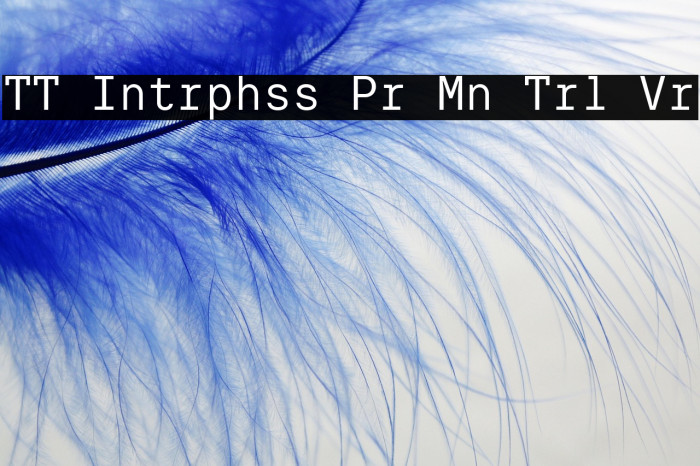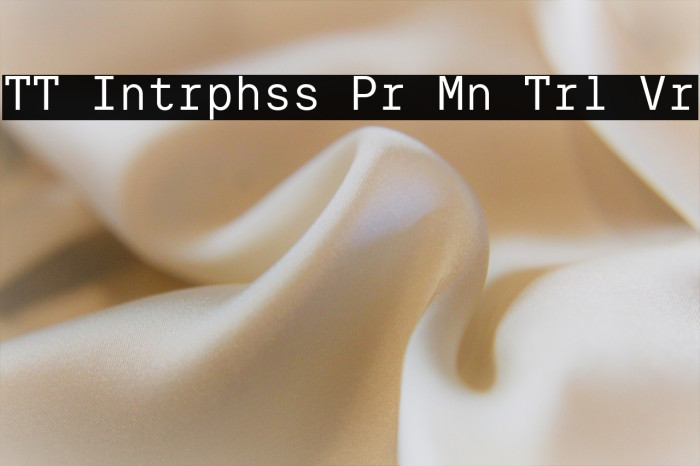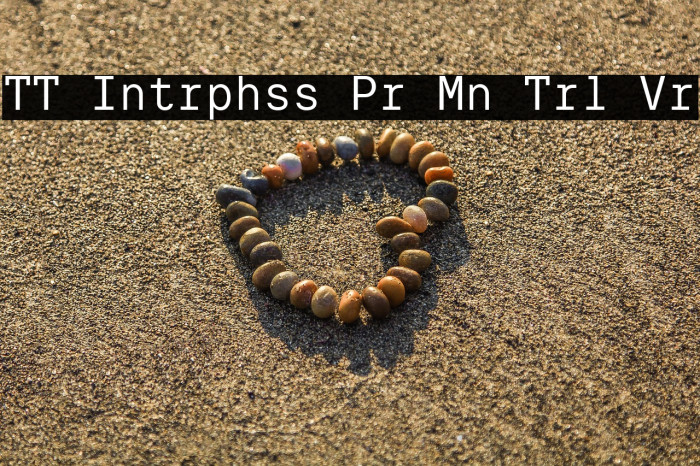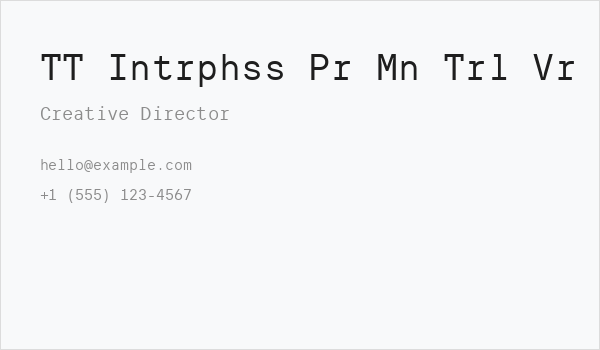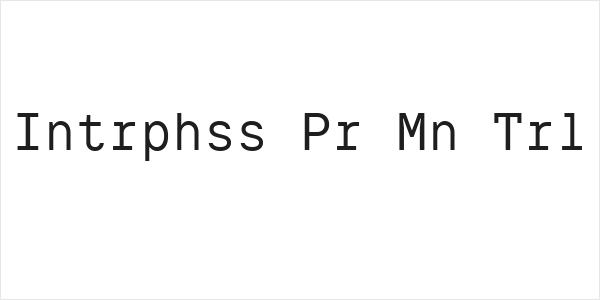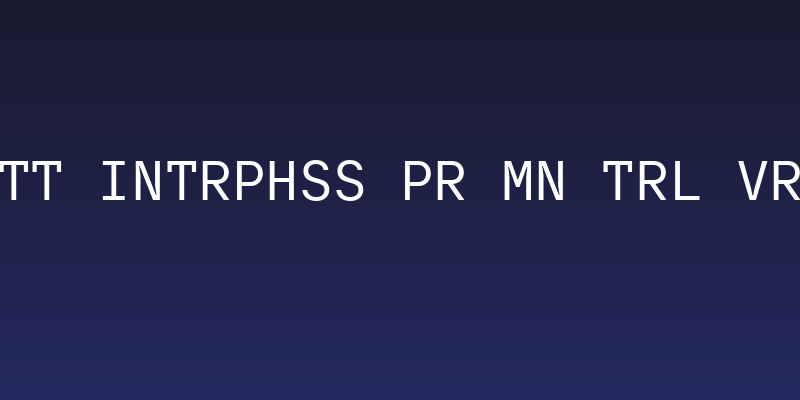
TT Intrphss Pr Mn Trl Vr Font
TT Intrphss Pr Mn Trl Vr Description
This font features a clean and modern sans-serif design with a straightforward and highly legible appearance. The characters are evenly spaced, providing a balanced and harmonious look. The uppercase letters are bold and assertive, while the lowercase letters maintain a consistent and smooth flow. The numerals are clear and distinct, making them easy to read. The special characters are well-defined, adding versatility to the font's use. Overall, this font is suitable for a wide range of applications due to its simplicity and clarity.
| Proposed Projects | Ideal for digital interfaces, corporate branding, editorial design, and signage. |